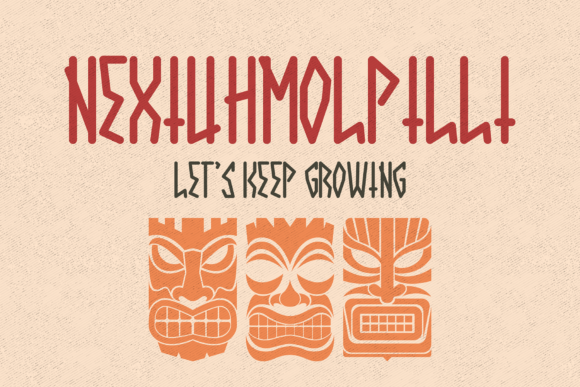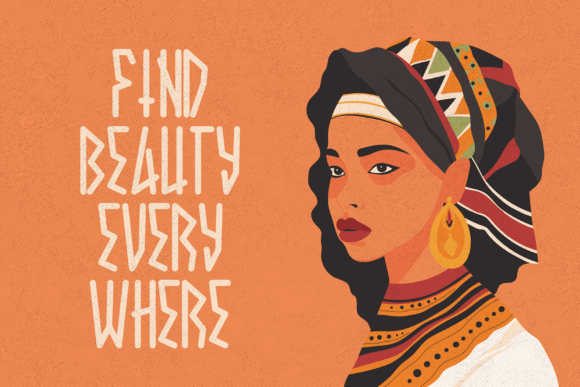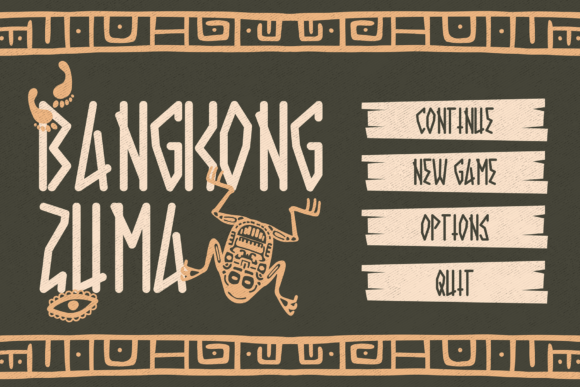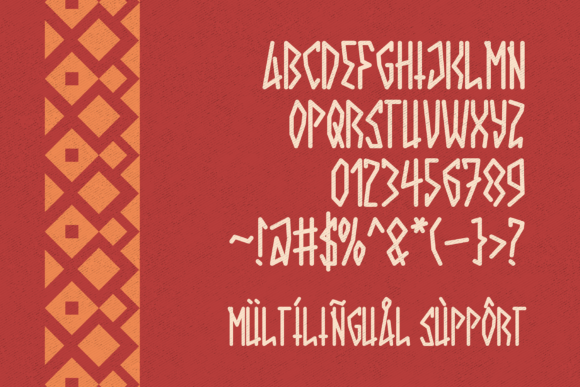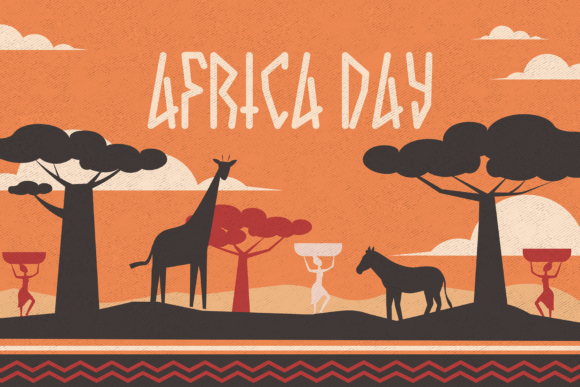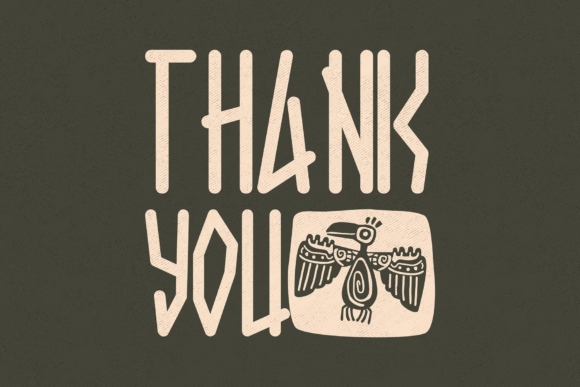
Introduction to Nomad Tribes Font
Have you ever found yourself lost in the vast expanse of a digital library, searching for the perfect font to elevate your creative project? The endless options can be overwhelming, but what if I told you that you’re just a click away from discovering a design resource that will transport you to a world of ancient wonder?
As I sat in front of my computer, scrolling through font options, I stumbled upon the Nomad Tribes Font. Its bold and captivating presence immediately caught my attention, and I knew I had to learn more. This high-quality font is not just a design element; it’s a gateway to an ancient world, evoking a sense of wonder and curiosity in the hearts of those who behold it.
Key Features of Nomad Tribes Font
- Unique Tribal Typography: The Nomad Tribes Font features a distinctive tribal-inspired design with intricate patterns and symbols, perfect for creative projects that require a bold and exotic look.
- Multi-Layered Design: The font features multi-layered design elements, allowing for endless customization options and making it a great choice for creative projects that require a high degree of flexibility.
Honest Review: Nomad Tribes Font
I recently stumbled upon the Nomad Tribes Font, and I’m excited to share my honest review with you. This free download has been a game-changer for my creative projects, providing a unique touch that sets my work apart.
Here are some aspects that work well for me:
- ✨ Unique aesthetic: The Nomad Tribes Font has a distinct style that adds a layer of sophistication to my designs.
- ✨ High-quality: The font is crisp and clear, making it perfect for printing or digital use.
- ✨ Transparent background: The font’s transparent background allows for seamless integration with any design, giving me more creative freedom.
- ⚠️ Limited customization options: While the font is great on its own, I wish there were more customization options available to tailor it to specific design needs.
- ⚠️ Limited font size range: The font may not be suitable for very large or very small text sizes, which could be a limitation in certain design scenarios.
Overall, I’m impressed with the Nomad Tribes Font, and I highly recommend it as a design resource for any creative project. Its unique style and high-quality make it a valuable addition to my design toolkit.
To get the most out of the Nomad Tribes Font, consider the following tips: use the font with a transparent background to create a modern and sleek design, experiment with different font sizes and colors to create visual interest, and use the font in conjunction with other design elements to create a cohesive look.
The Nomad Tribes Font is perfect for a variety of creative projects, including: blog posts, social media graphics, business cards, and presentations. Its unique and stylish design makes it a great choice for any project that requires a touch of sophistication and elegance.